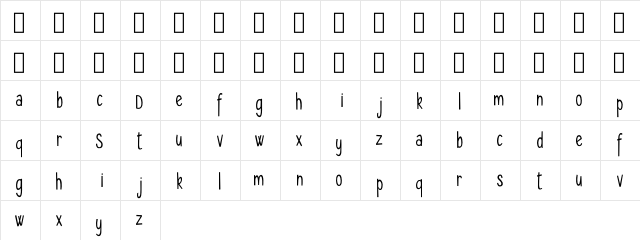
Seryfan Demo
Design Context for Seryfan Typeface
Seryfan is a composed and adaptable typeface that performs quietly and consistently across a wide range of design contexts.